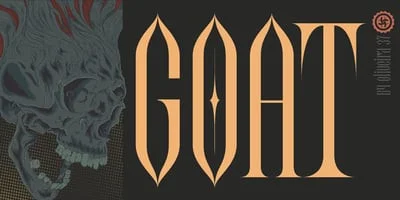
Goat Font
Goat Font is ideal for bold design projects including sports team branding, championship merchandise, athletic achievement campaigns, competitive gaming logos, fitness center signage, sports equipment packaging, victory celebration materials, and performance-driven marketing campaigns. This powerful typeface works perfectly for sports bars, athletic apparel brands, competitive event promotions, training facility materials, and projects that celebrate excellence, determination, and winning spirit.
What makes Goat Font exciting is its champion-level character that perfectly embodies the essence of athletic excellence and competitive greatness. The font features strong, confident letterforms with decisive angles that reflect the power and determination of peak performance athletes. Its commanding design elements capture the spirit of championship victories and record-breaking achievements, making it perfect for projects that need to convey superiority, excellence, and legendary status. The carefully crafted bold presence ensures maximum impact while maintaining the authority of true champions.
Goat Font comes in multiple family variations including regular, bold, condensed, and championship styles. Each weight maintains the distinctive champion character while offering different levels of competitive intensity and victory presence. The font family includes winner alternates, champion ligatures, and legendary variations that provide designers with comprehensive options for creating truly dominant and performance-driven typographic compositions that celebrate athletic supremacy.
Whether you're designing sports branding, creating athletic marketing materials, or developing championship promotional graphics, Goat Font provides the perfect typographic foundation for projects that celebrate greatness and competitive excellence. This exceptional typeface transforms standard text into compelling declarations of victory and athletic achievement. Download this legendary font today and champion your design projects with typography that captures the winning spirit and demonstrates the excellence that separates champions from competitors in every field of endeavor.